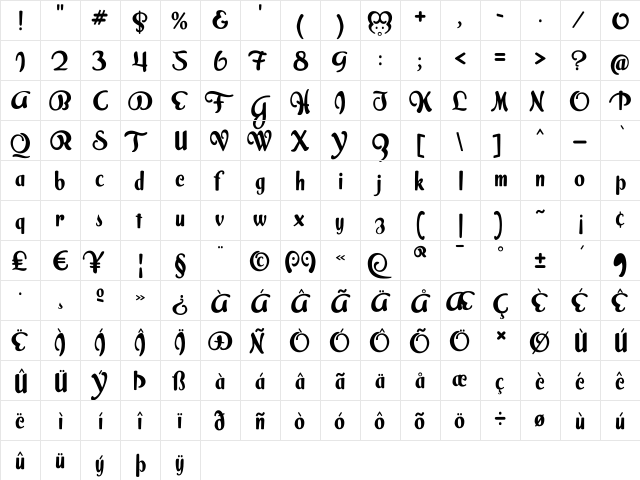
Milk Script Alternate Regular
Design Context for Milk Script Alternate Typeface
Milk Script Alternate flows with the natural rhythm of handwritten lettering, making it ideal for designs that call for warmth and personal expression.
Font Pairing: Combine Milk Script Alternate with a simple geometric sans for maximum contrast — the tension between flowing curves and clean structure is a classic typographic pairing.
Pro Tip: Pair Milk Script Alternate with a clean sans-serif for supporting text. The contrast between fluid script and geometric structure creates an elegant typographic hierarchy.